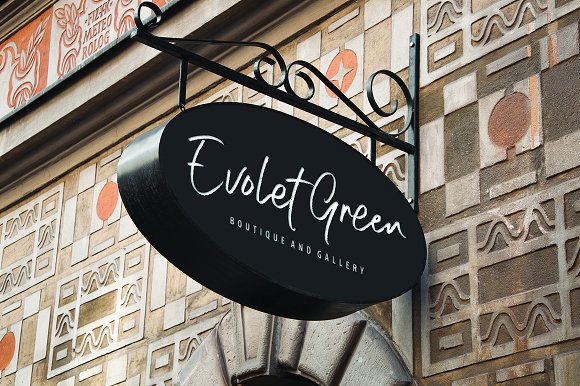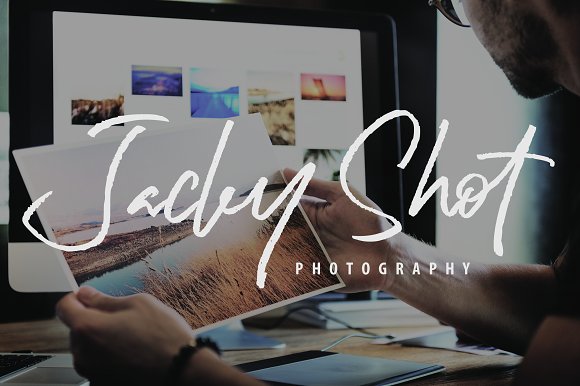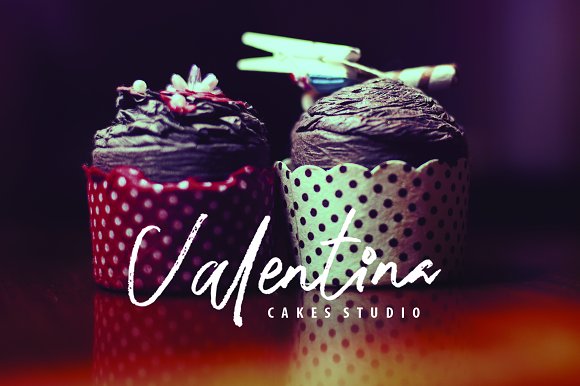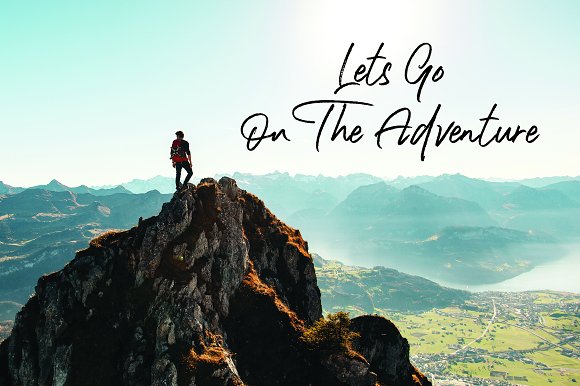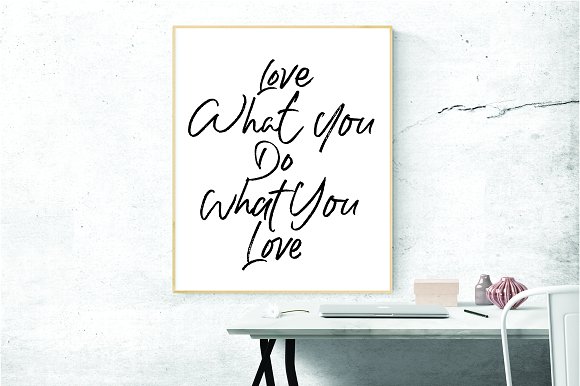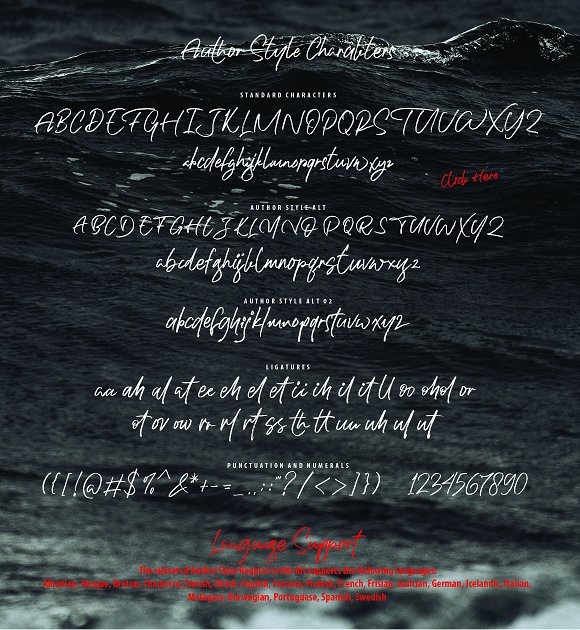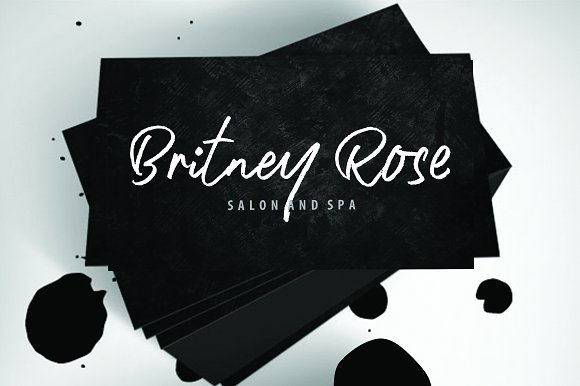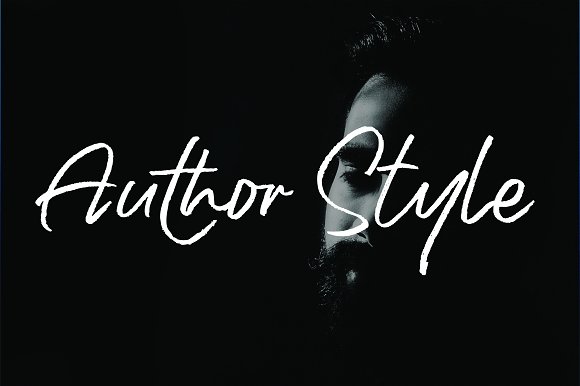
Author Style Script Font
Author Style are handmade with amazing character. Ideal for a logo, a name tag, handwritten quotations, product packaging, goods, social media and greeting cards. It contains a complete set of lower and upper case letters, assorted punctuation, numbers, swash and multilingual support.